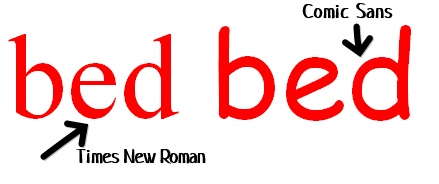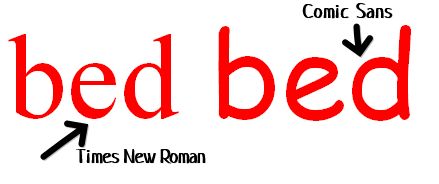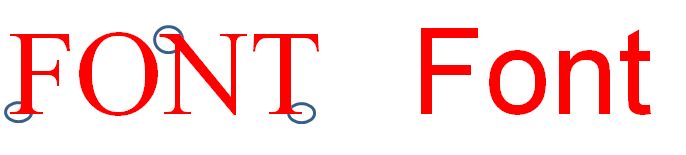
In the realm of design and communication, font choice plays a pivotal role in ensuring information is not just seen, but also effectively understood. But with the vast array of typefaces available, which font reigns supreme in terms of readability?
The Science Behind Readable Fonts
Delving into font readability, we're essentially investigating how effortlessly text can be consumed and understood. The design and structure of a font can significantly influence this ease. Here are the pivotal elements that designers and typographers consider:
- Character Spacing: Generous spacing between characters prevents letters from merging into one another, especially in dense blocks of text. This separation ensures clarity and aids in distinguishing each letter or symbol.
- X-height Dynamics: X-height pertains to the height of lowercase letters, specifically comparing them to their uppercase counterparts. Fonts boasting a more pronounced x-height are often perceived as more readable. This is especially true when they're scaled down, as the characters remain discernible.
- The Serif and Sans-serif Debate: For a long time, serif fonts, characterized by their small decorative strokes or 'feet' at the end of characters, were championed for their readability in printed content. They provided a flow, guiding the reader's eyes along lines of text. However, as digital screens became ubiquitous, sans-serif fonts, known for their sleek and unadorned design, gained prominence. They offered a sharper, clearer display on digital interfaces, reducing strain and enhancing on-screen reading.
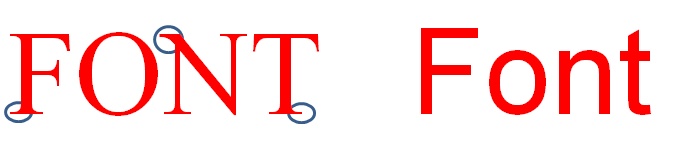
Fonts: Print vs. Digital
When determining the best fonts for readability, one must consider the medium—print or digital—as each comes with its unique set of challenges and advantages.
Print Fonts
- Historical Context: Traditional serif fonts, such as Times New Roman or Garamond, have deep roots in print. Their design, with tiny serifs or feet, aids in guiding the reader's eye along lines of text, especially in densely-packed materials like books or newspapers.
- Texture & Feel: The tactile nature of print allows for certain intricacies in font design. Fine details and thin lines can be appreciated in print, whereas they might be lost or pixelated on some digital screens.
Digital Fonts
- Screen Clarity: Digital screens, particularly early or low-resolution ones, can struggle to render the intricate details of some fonts. This led to the rise of sans-serif fonts like Arial or Verdana, which maintain clarity even at smaller sizes.
- Scalability: Digital content is often viewed on a variety of devices, from smartphones to large monitors. Fonts used in digital mediums need to maintain readability across different screen sizes and resolutions.
- Adaptive Design: In the digital realm, fonts might also need to adapt to dark mode settings or different color themes, making versatility a key consideration.
Benefits of Readable Typefaces
Enhanced Clarity and Comprehension
The primary goal of any written content is communication. A typeface that is easily readable ensures that the message is received and understood with minimal effort. When a font is clear and easy on the eyes, it reduces the cognitive strain on the reader, allowing them to focus on the content itself rather than struggling to decipher the letters.
Boosted Engagement
In an age of information overload, capturing and retaining a reader's attention is paramount. A font that's readable can be the difference between a user staying on a webpage or article and them navigating away out of frustration. This is especially crucial in contexts like web design, where user experience is king, and long-form content, where sustained engagement is needed to convey detailed information or narratives.
Promoting Inclusivity
The power of readable fonts extends beyond just aesthetics and user engagement; it's also a matter of accessibility. By prioritizing readability, content becomes accessible to a broader demographic. This includes individuals with visual challenges, such as those with age-related macular degeneration or cataracts. Moreover, certain fonts are designed keeping in mind individuals with dyslexia, making it easier for them to distinguish between characters and words. Choosing such typefaces ensures that content is not just for a select few but is inclusive and accommodating of diverse readership needs.
Popular Readable Fonts with Their Ideal Scenarios
- Times New Roman: A classic serif font, it's familiar to many and has been a staple for long-form content in print.
Ideal for: Newspapers, books, academic papers. - Arial: A sans-serif font known for its neutral design and clear presentation on digital screens.
Ideal for: Websites, digital documents, presentations. - Georgia: Designed specifically for screen readability, it's a serif font that's great for digital long-form content.
Ideal for: Blogs, e-books, web articles. - Verdana: Created for clarity on screens, its wide spacing and distinct characters make it highly legible, even at smaller sizes.